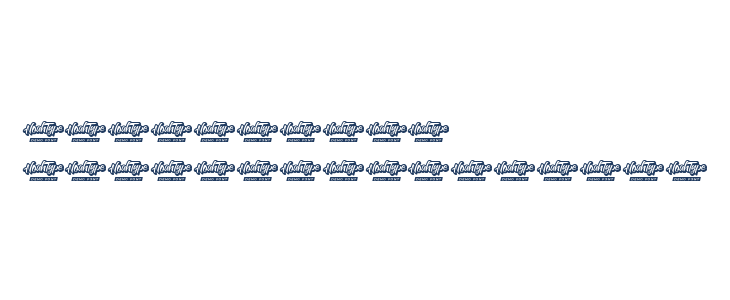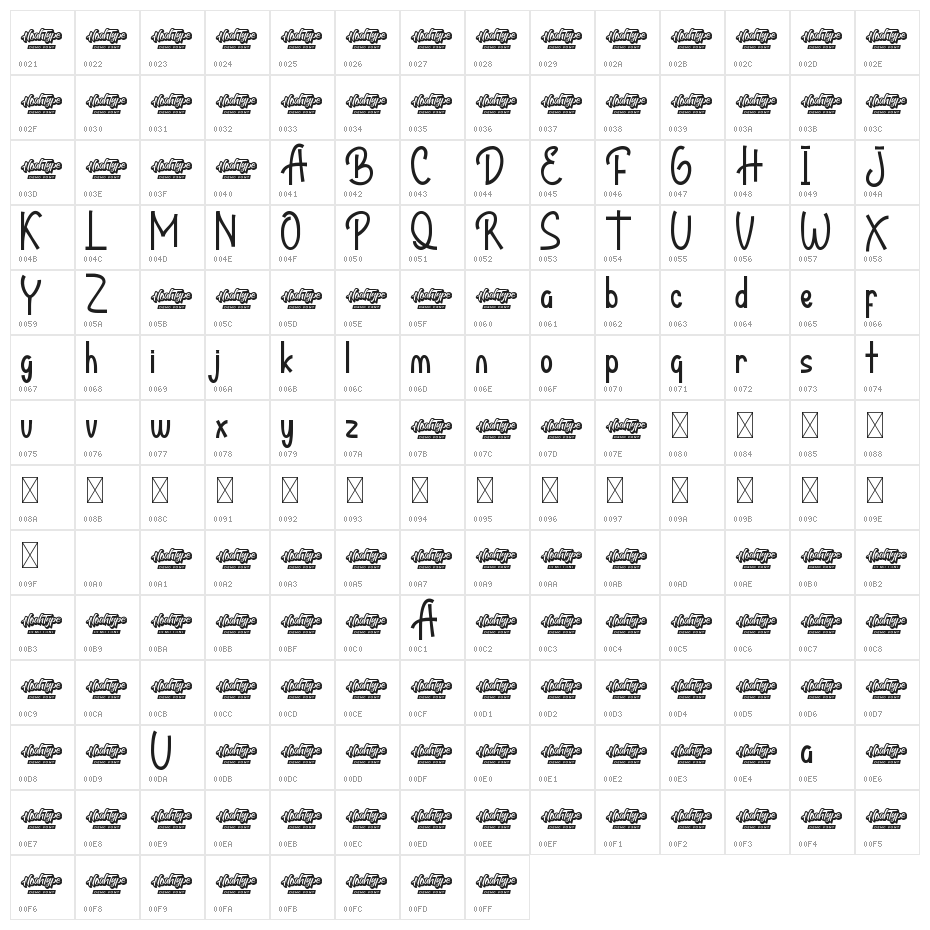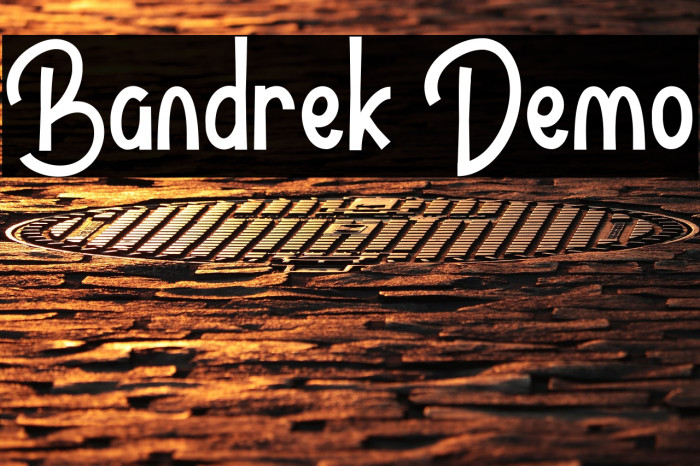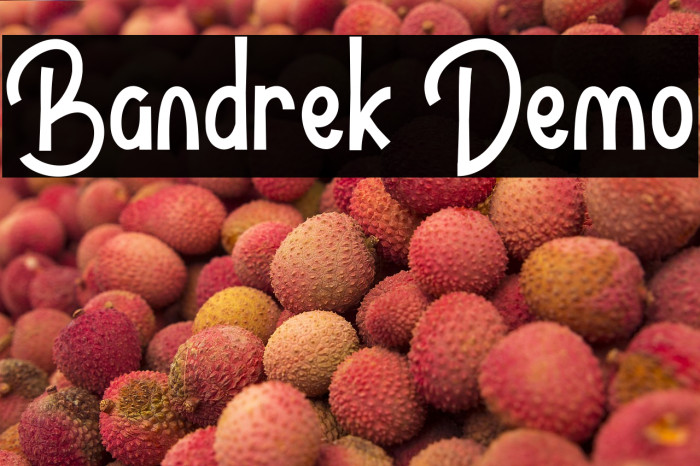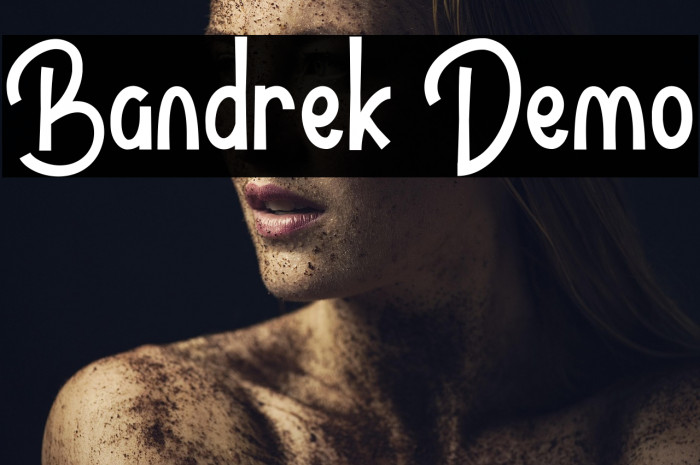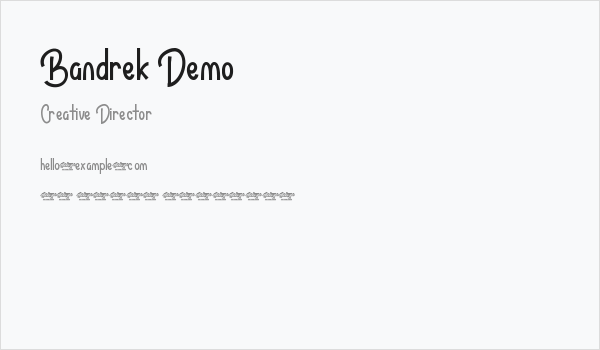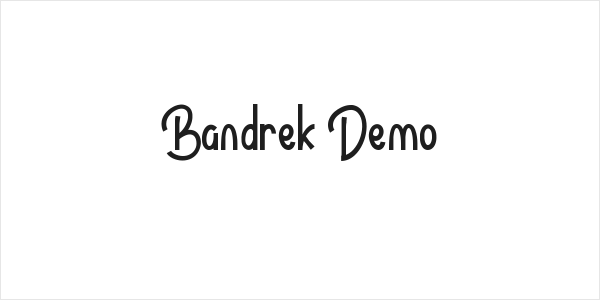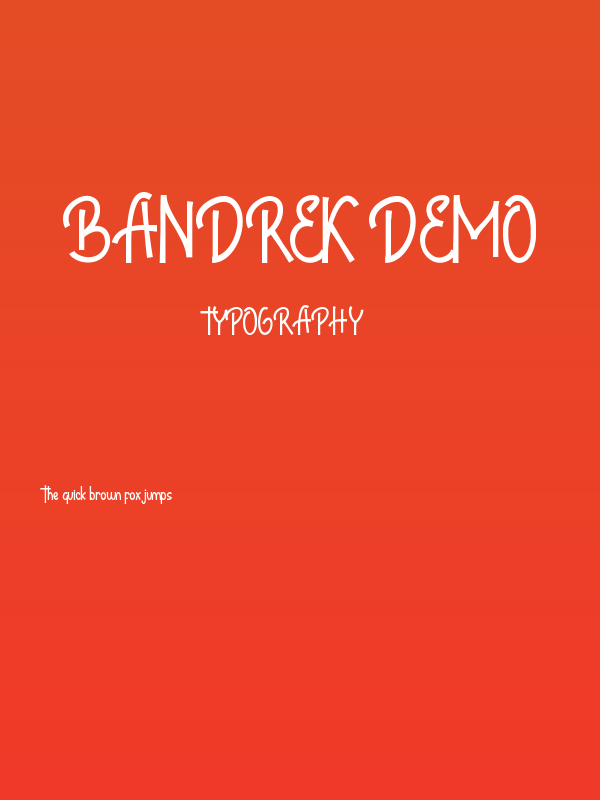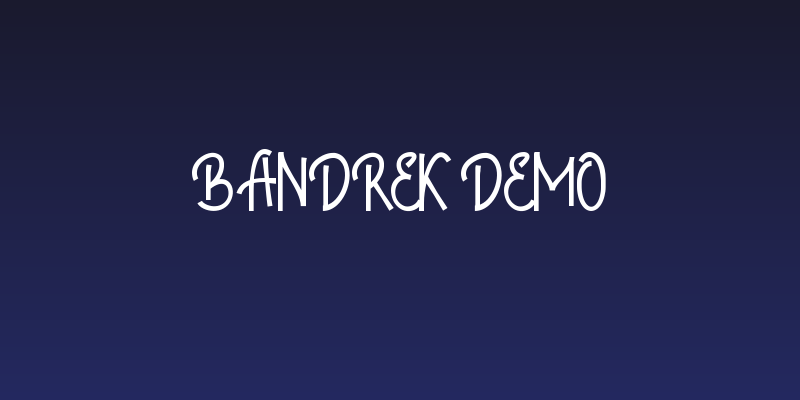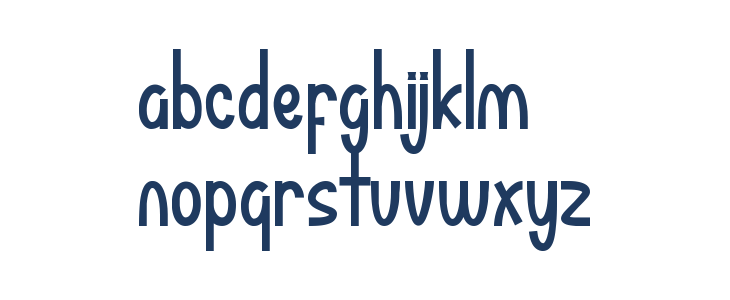
Bandrek Demo Font
Bandrek Demo Description
This font features a playful and whimsical design, characterized by its tall, narrow letters with a slight slant, giving it a dynamic and lively appearance. The uppercase letters are bold and prominent, while the lowercase letters maintain a consistent style with a slightly more rounded form. The font includes a full set of uppercase and lowercase letters, numbers, and a selection of special characters. The strokes are consistent in width, providing a uniform look across all characters. This font's unique style makes it suitable for creative and informal projects.
| Proposed Projects | Ideal for children's books, playful branding, greeting cards, and creative posters. |